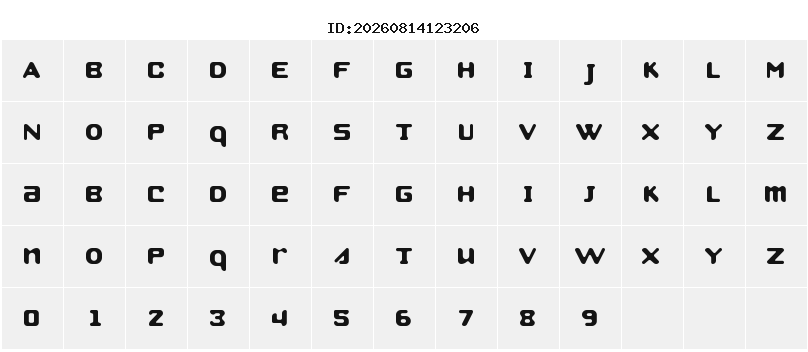
• Font Name: Strobo
• Full Font Name: Strobo
Strobo.ttf is a modern, elegant sans-serif font designed for ultimate readability and visual harmony. Perfect for branding, headlines, web design, and print materials.